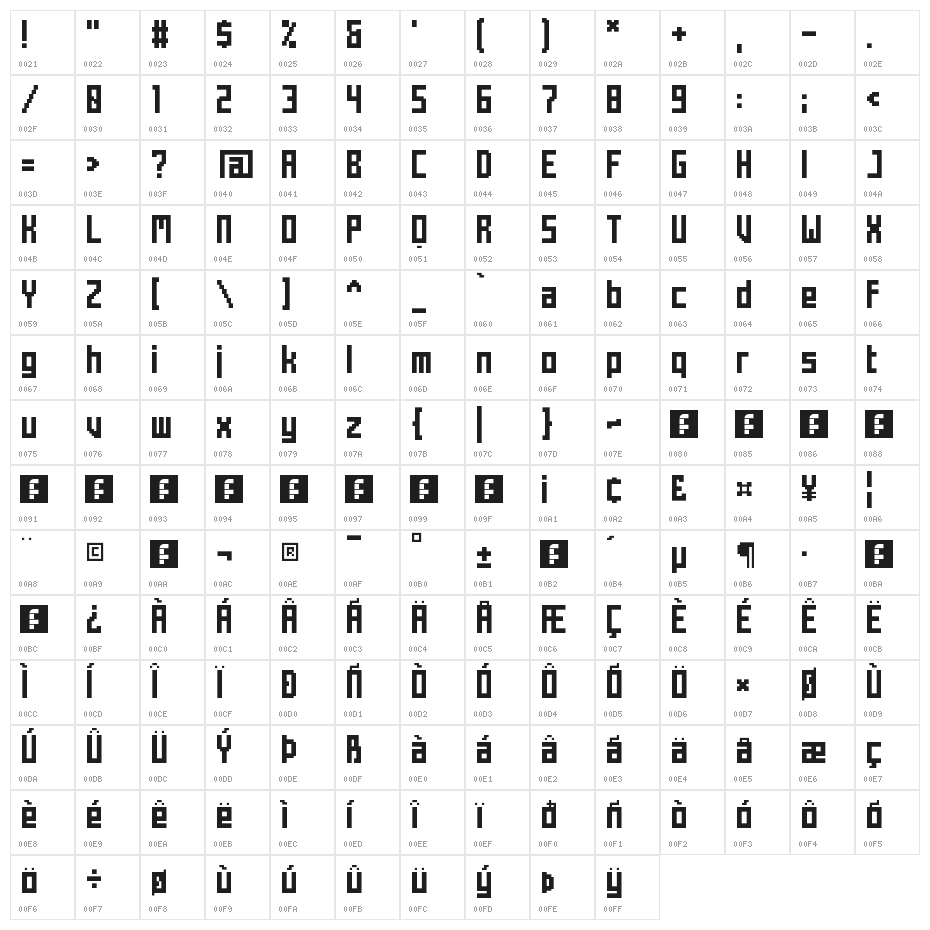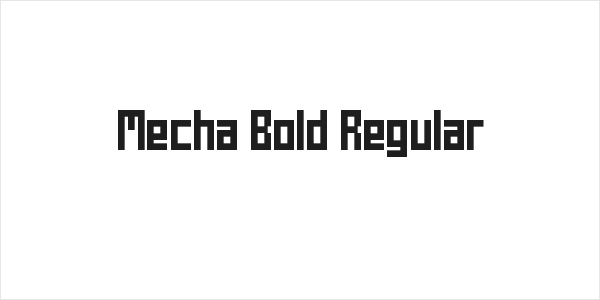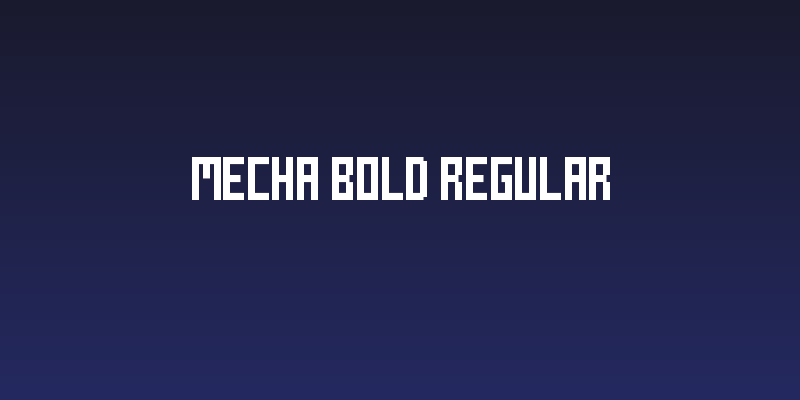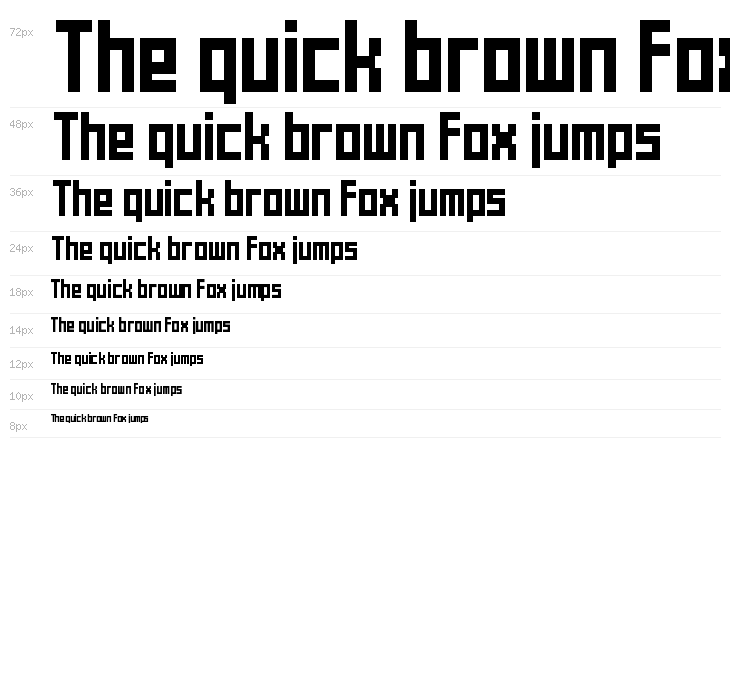
Mecha Bold Regular Font
| Progetti proposti | Ideal for tech-themed designs, video game graphics, posters, and branding that requires a modern, industrial touch. |